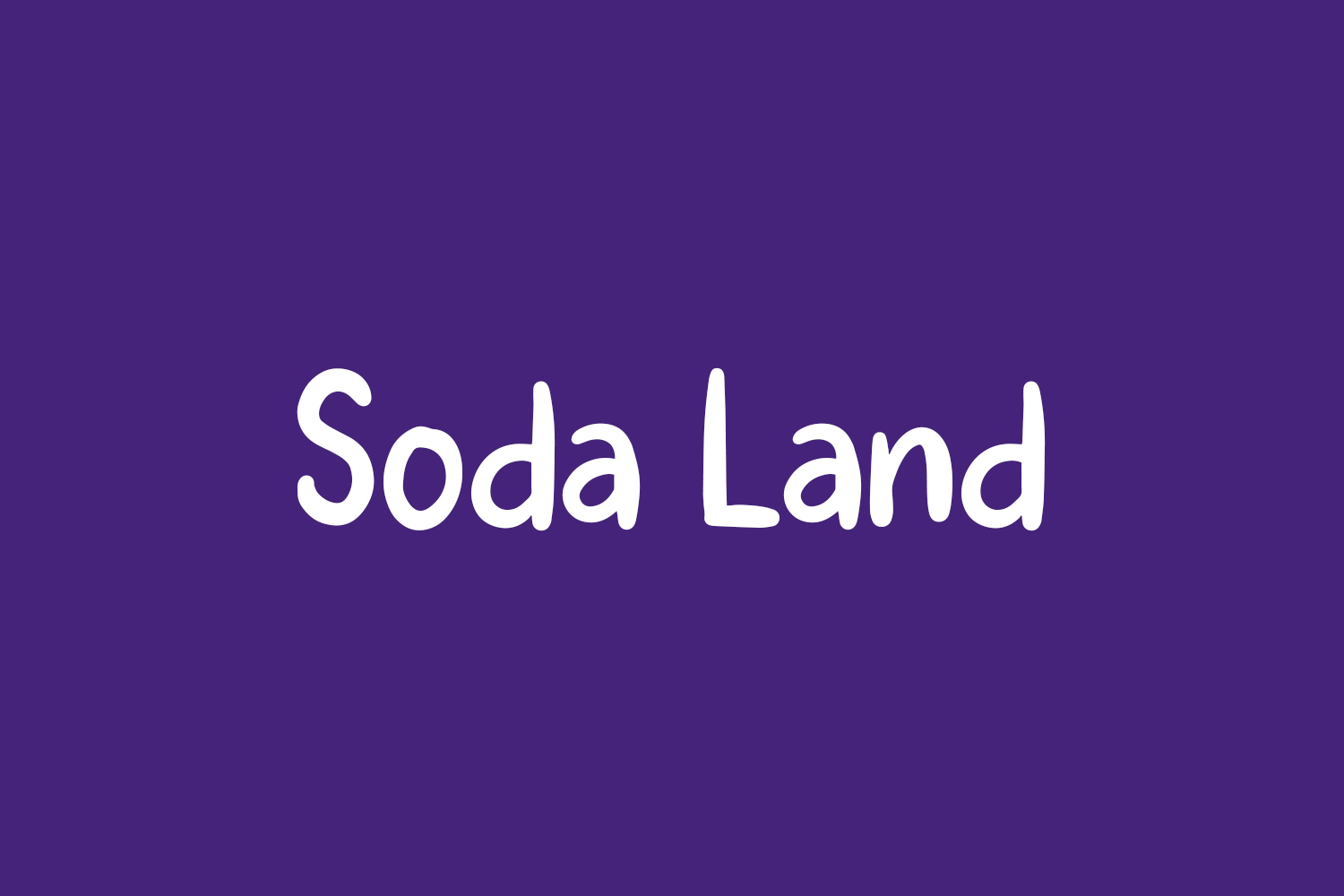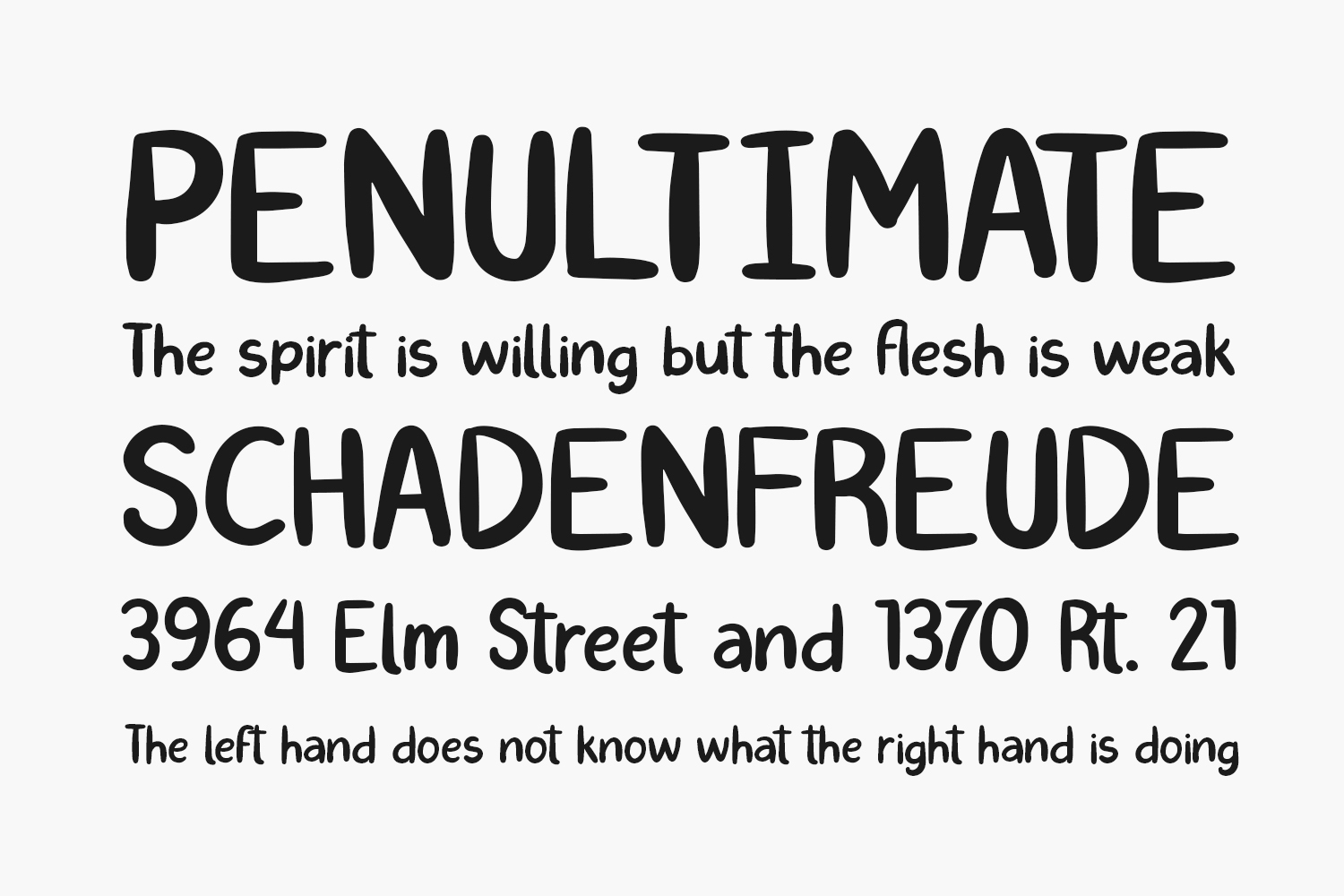
Soda Land Free Font is a cool, incredibly cute, and bubbly display font. Add to each of your party invitations, swimming gathering, or pretty much any design that requires a touch of youth and joy. Soda Land Free Font was designed by Typefactoryco and is free for personal use only. Please purchase the full version for commercial use.